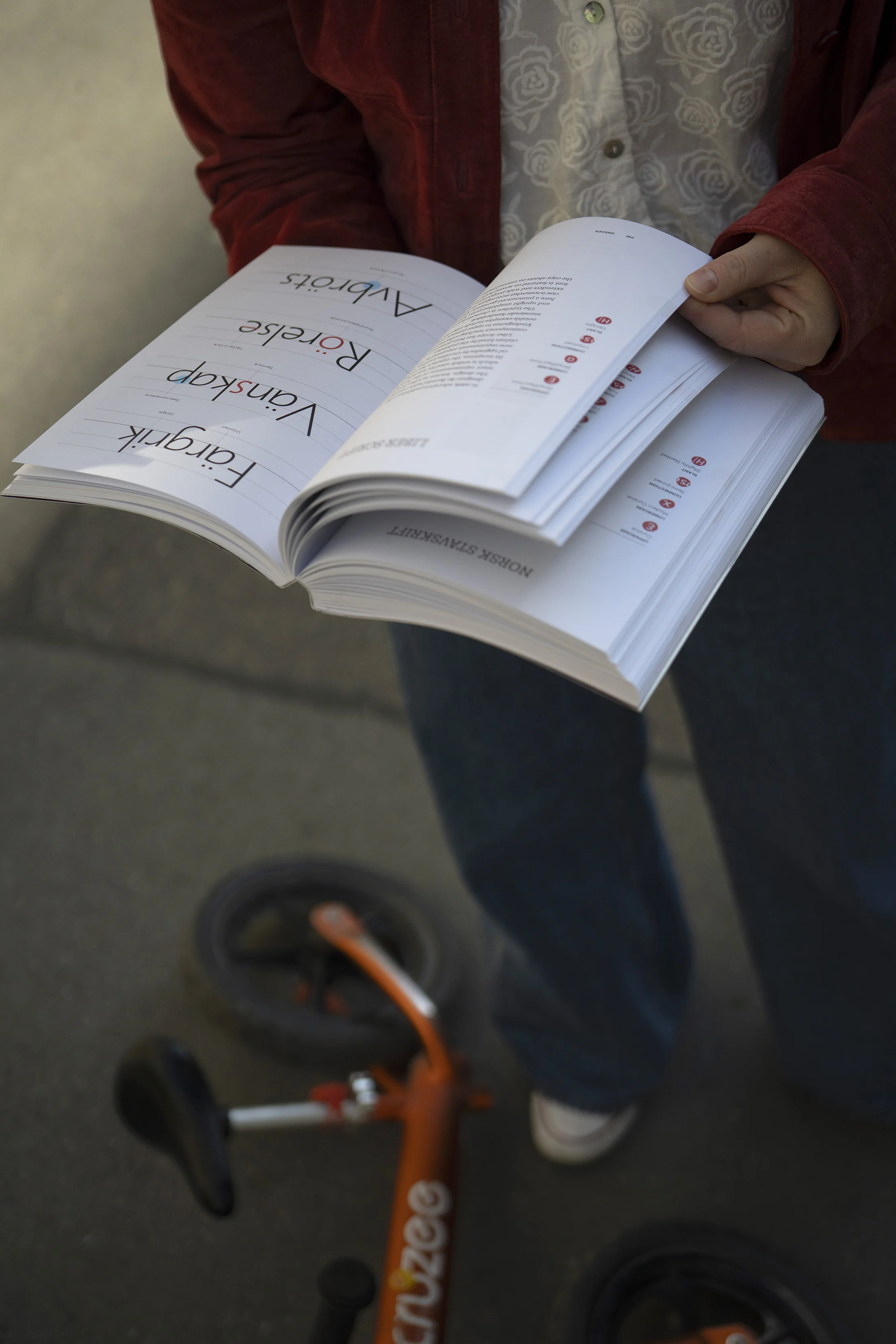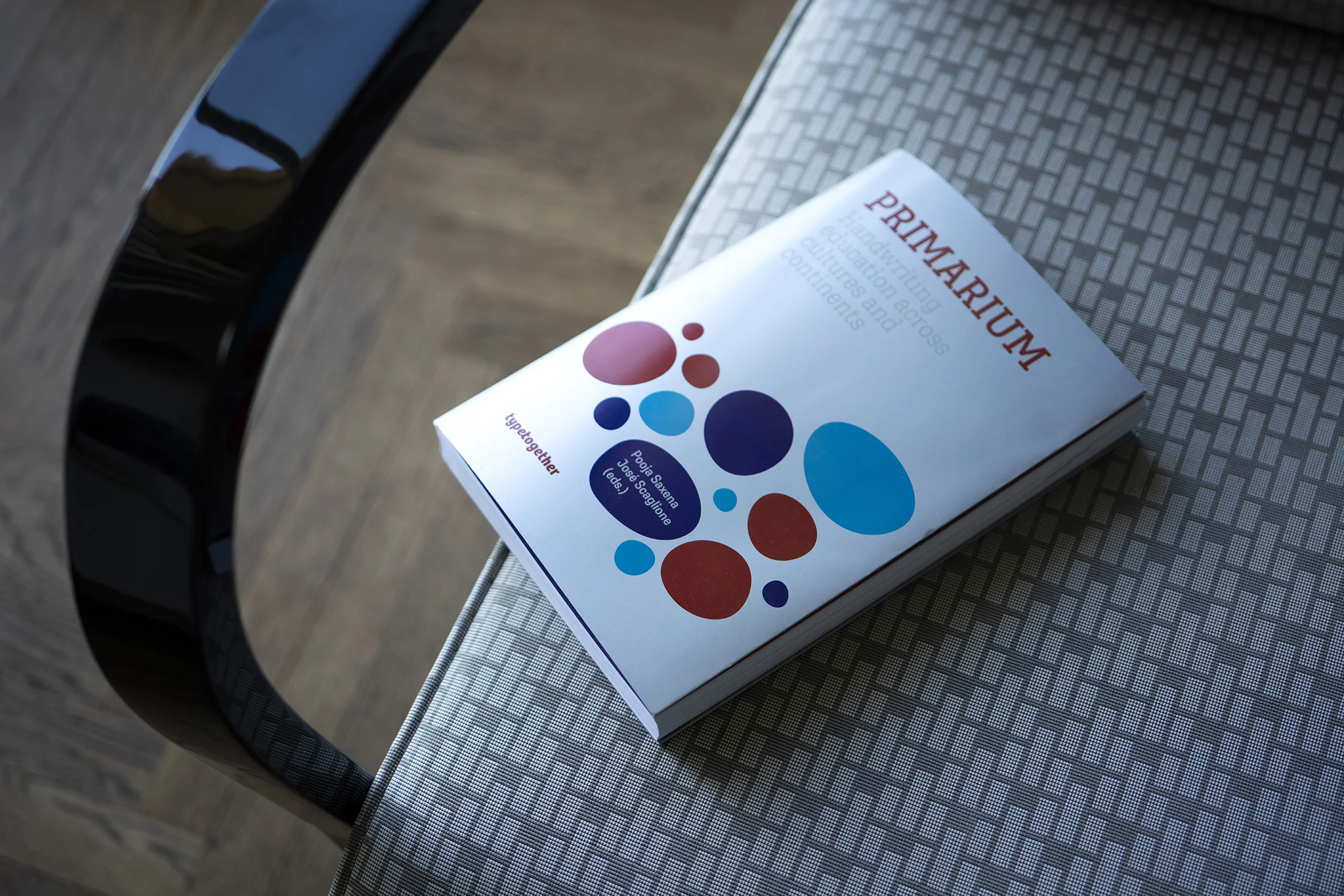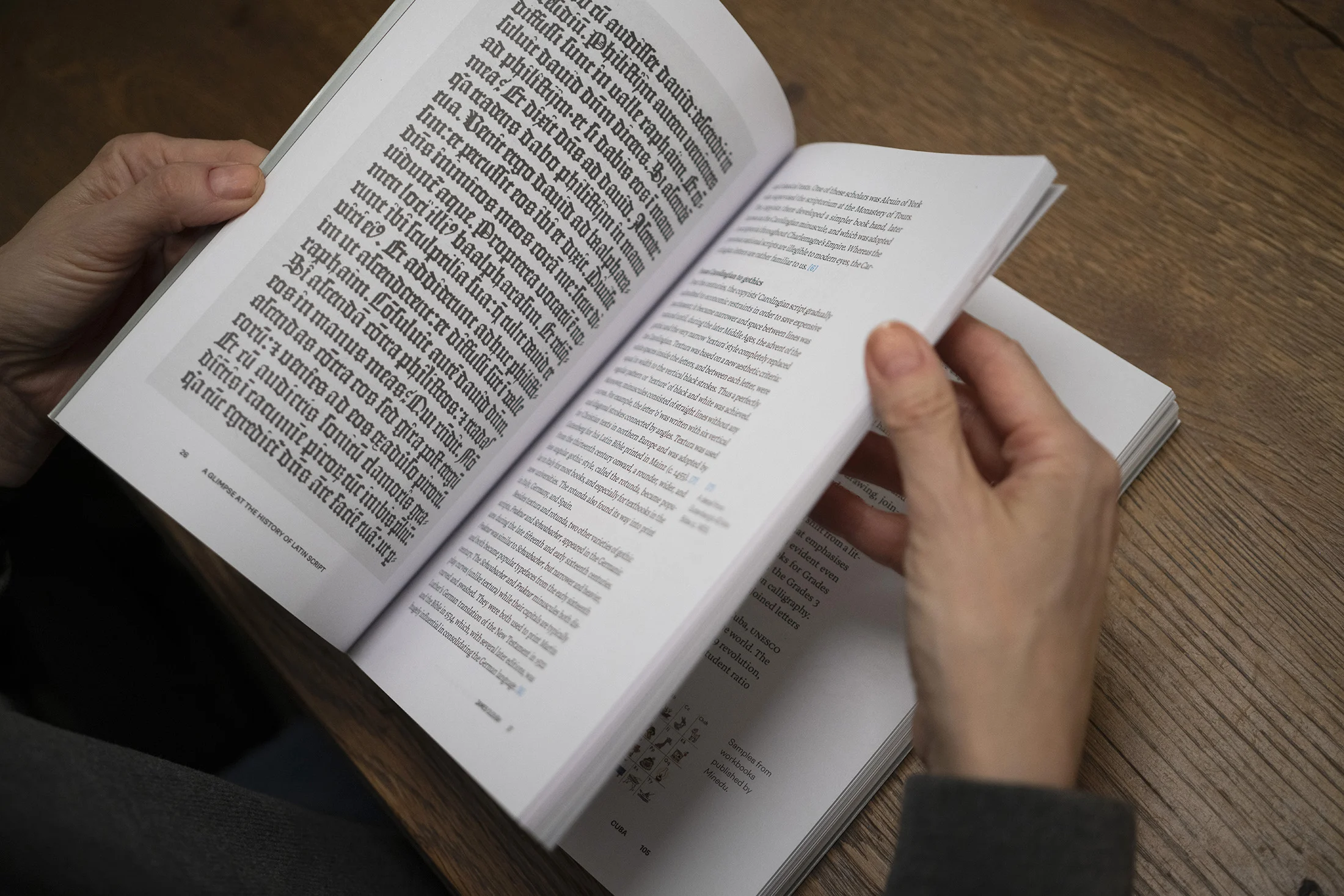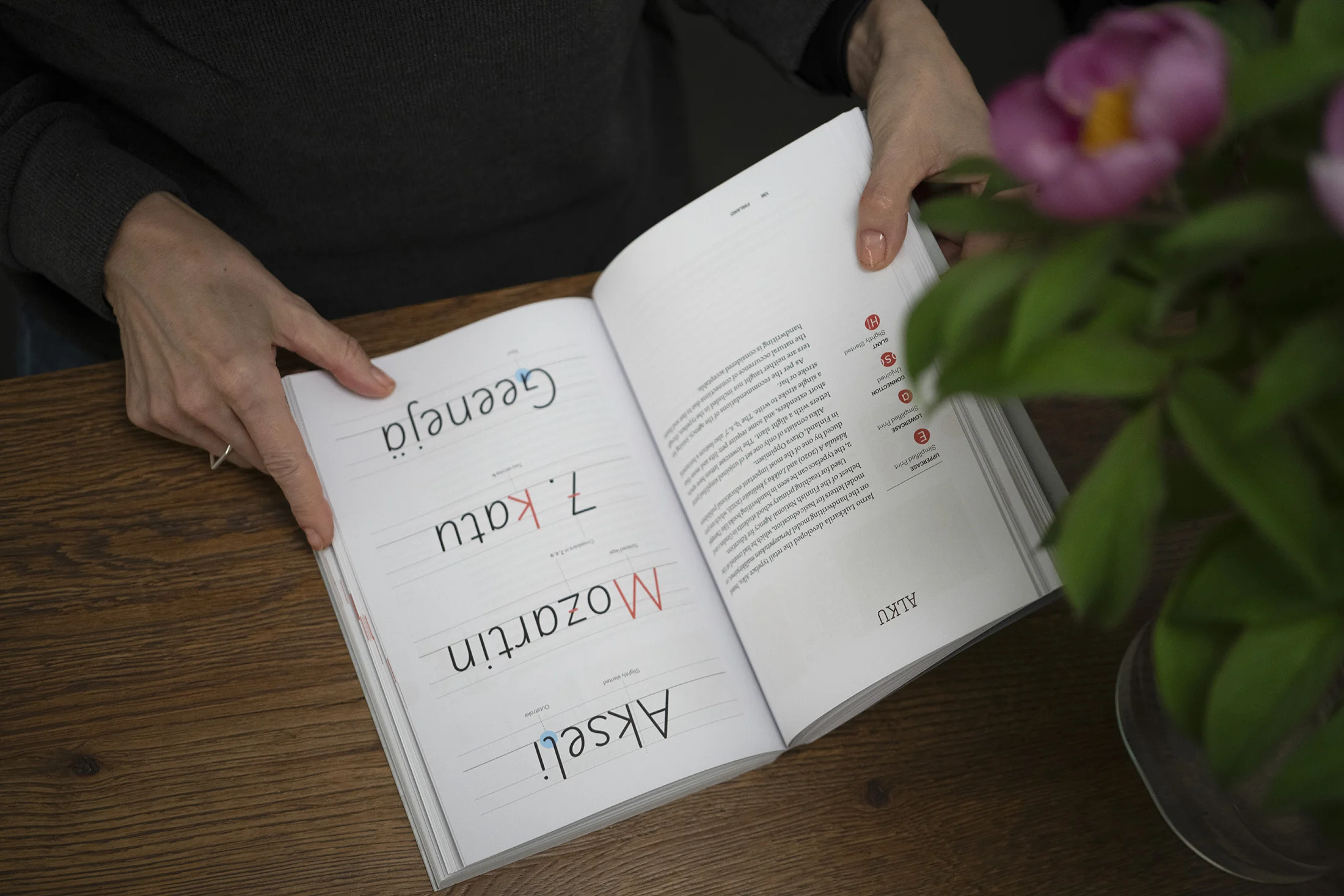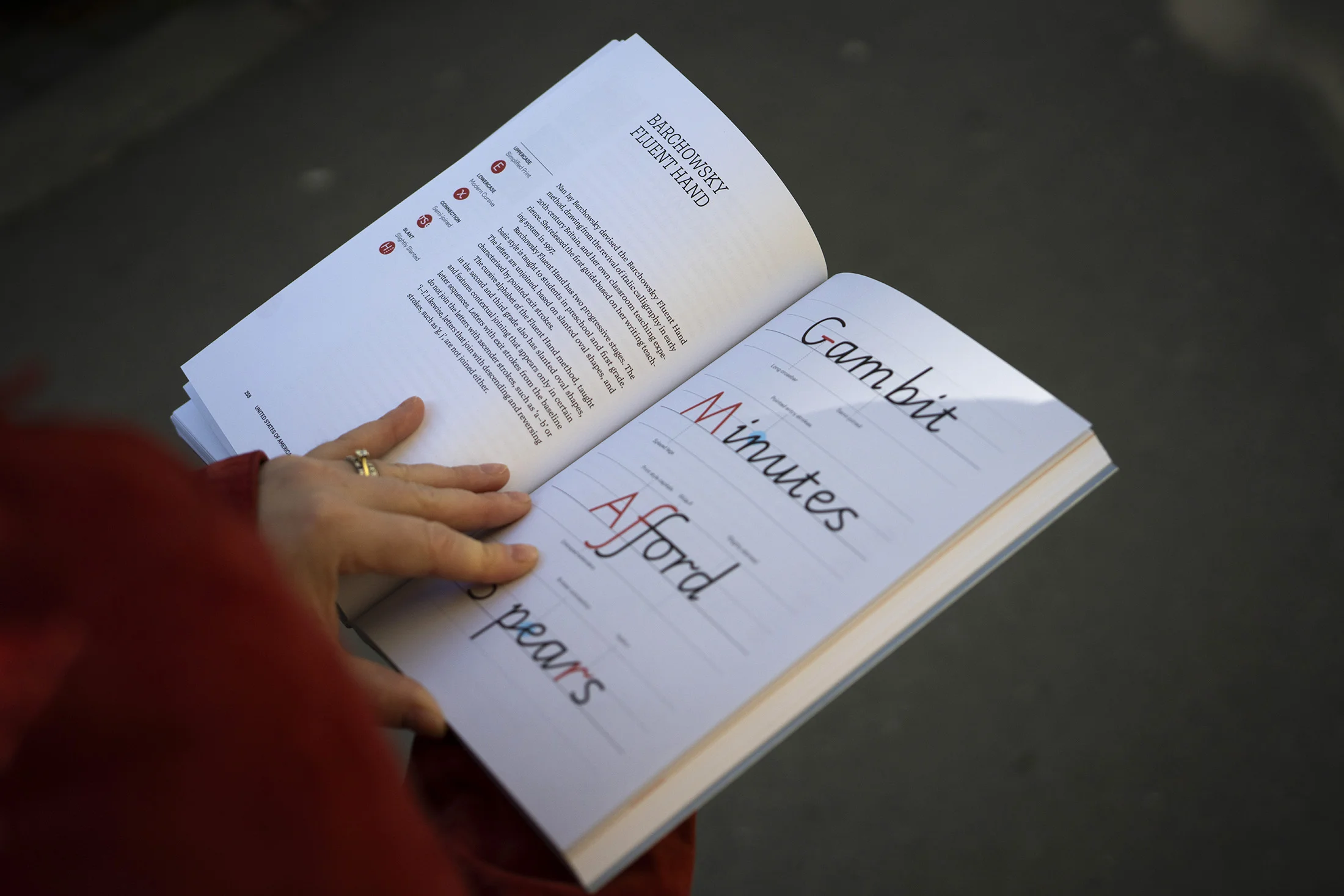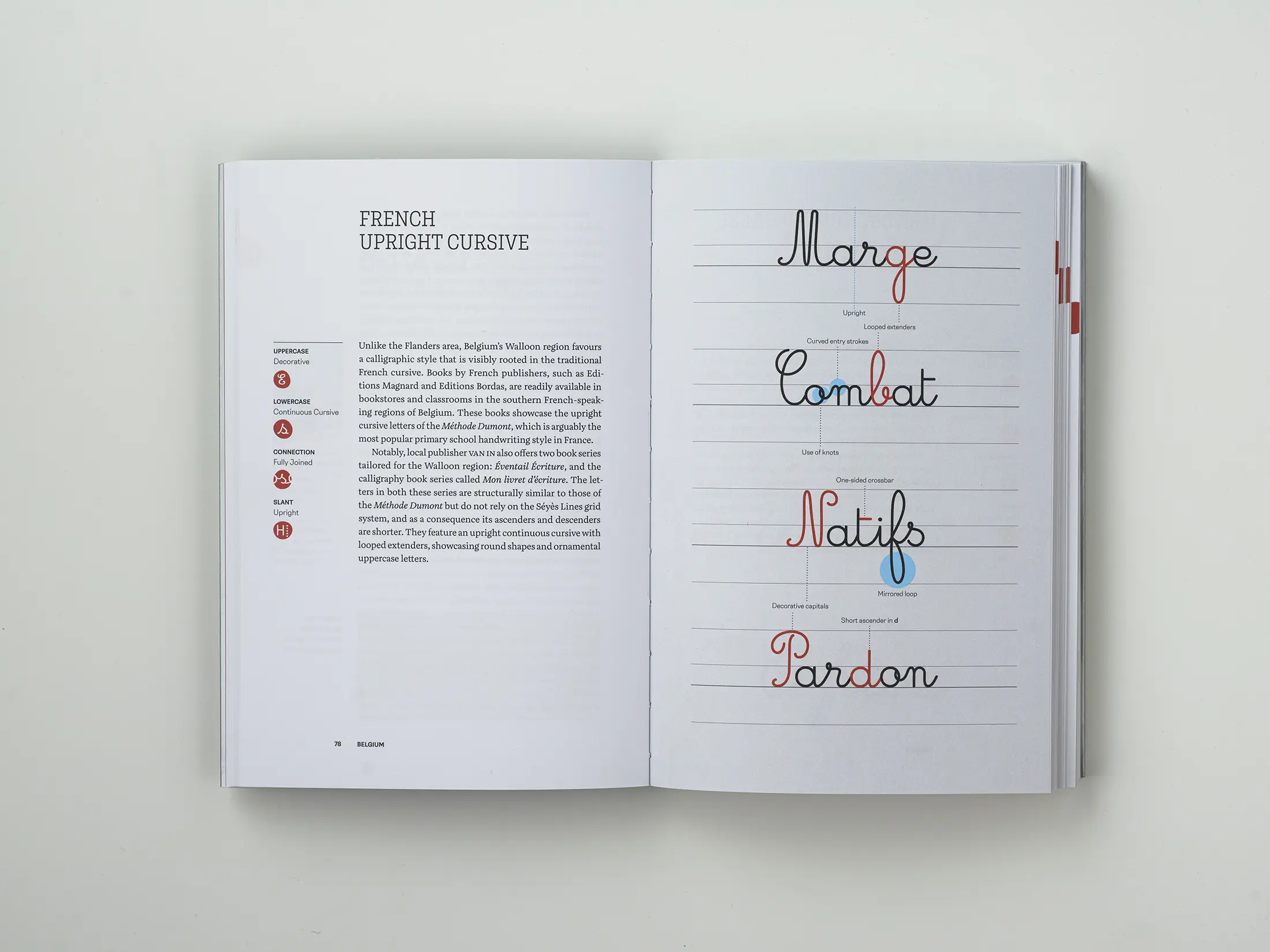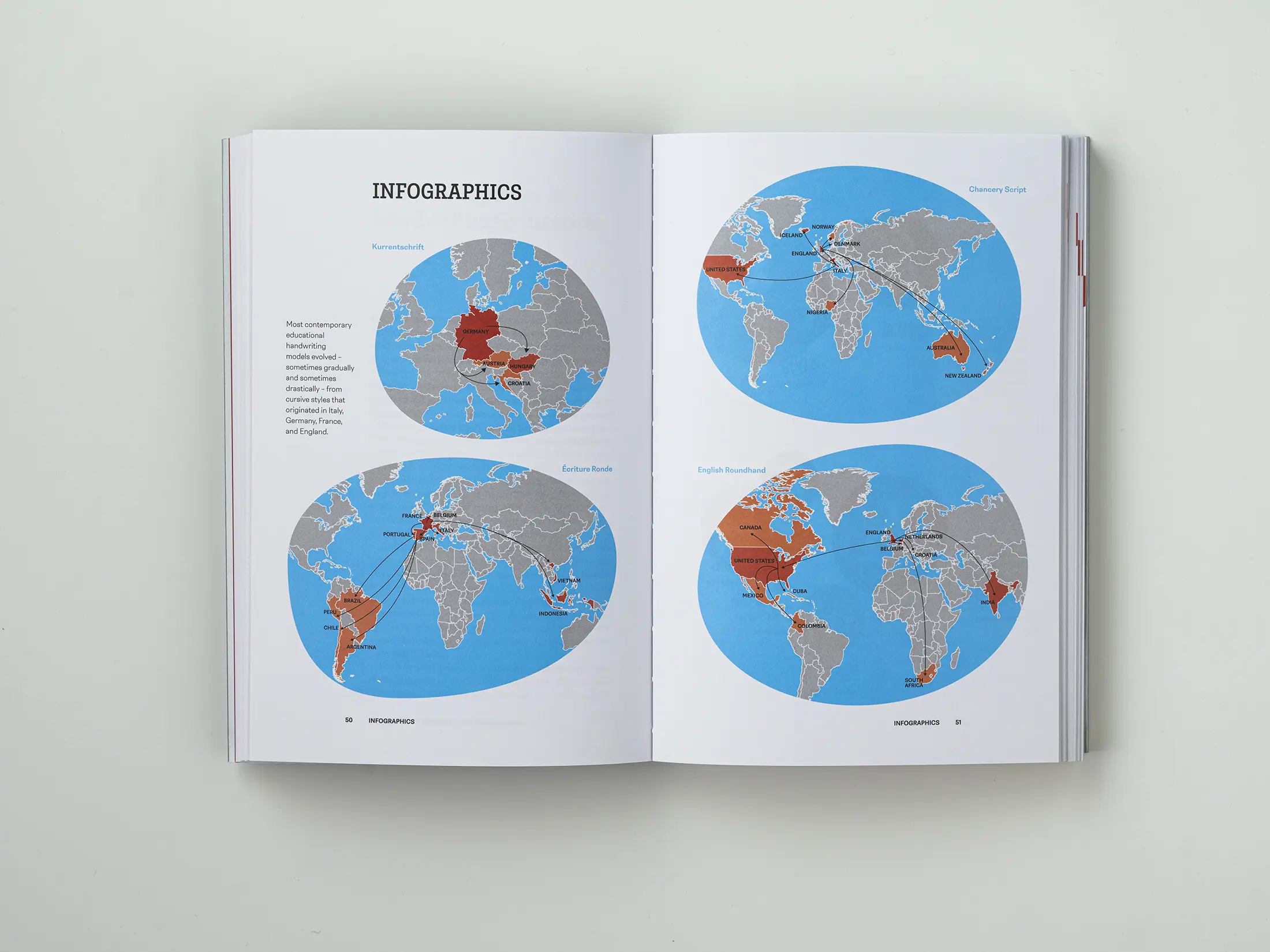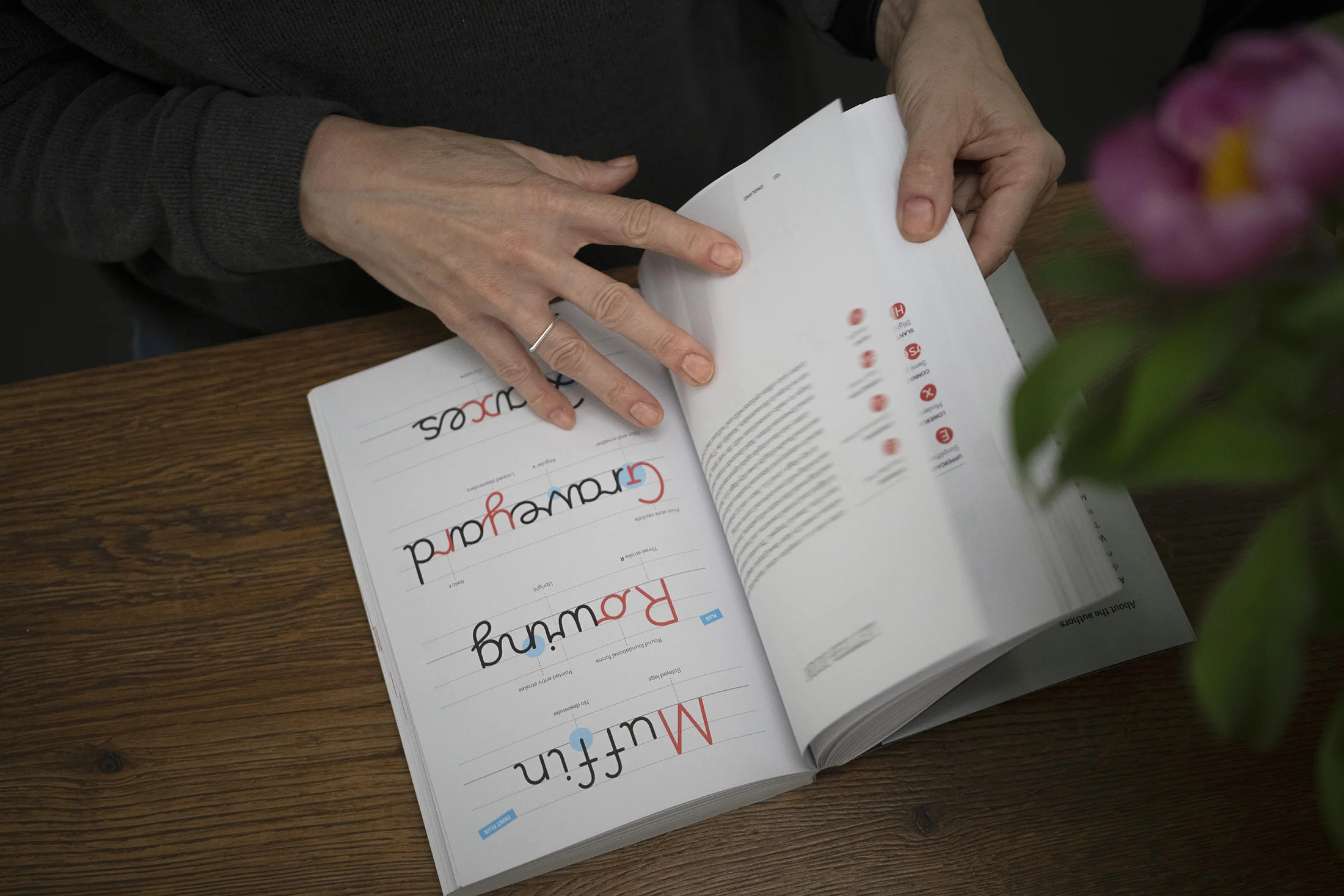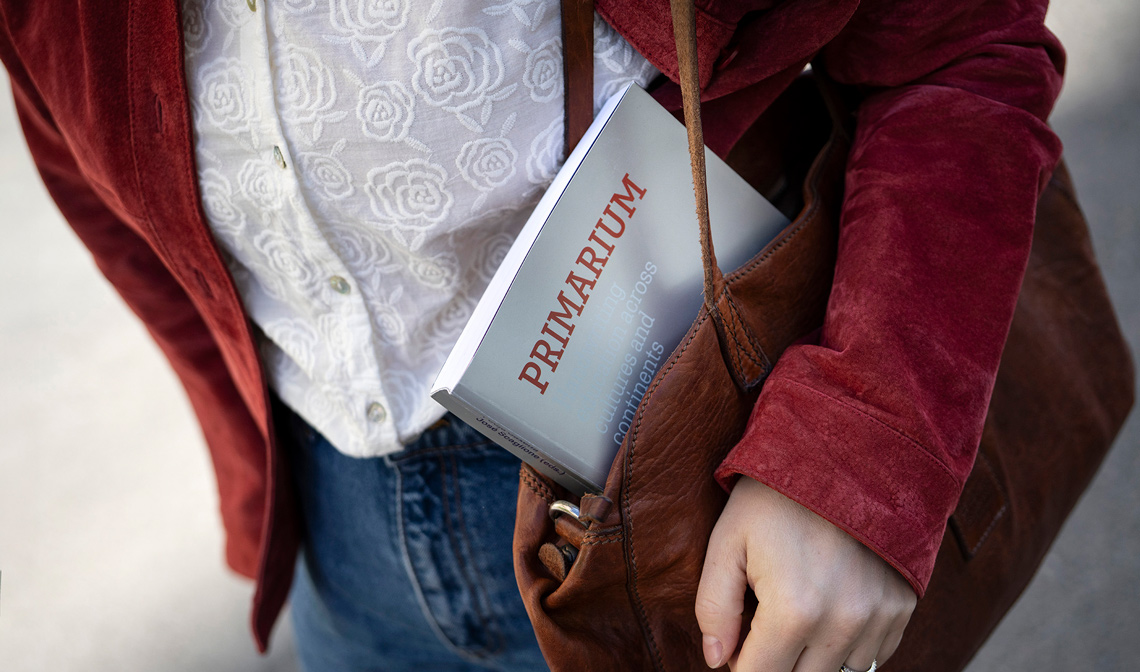
Primarium
A result of two years of research, analysis, and writing, our new book Primarium: Handwriting education across cultures and continents is a pioneering effort to understand the ways in which Latin-based handwriting is taught around the world. The core of this volume is original research that provides an overview of the handwriting education landscape in 40 countries, along with a close look at the particular styles and approaches employed in each.
Much more thorough than a cursory snapshot, Primarium lays the groundwork for additional research and understanding to be built on top, as well as providing comparative teaching models and letter shapes. The book includes discussions of cultural influences, educational reforms, and history on the methods currently used without judgment; it is a presentation rather than declaration. Project leaders Pooja Saxena and José Scaglione have written insightful essays bringing all these threads together to harmonise Primarium’s in-depth nature with its easily understood text and graphics.
The Primarium book project was led by Linda Kudrnovská, designed by Filip Blazek, and is rendered in 360 beautiful pages, using Aneto and Belarius for text. Follow the link to purchase your copy and expand your understanding of this important topic.